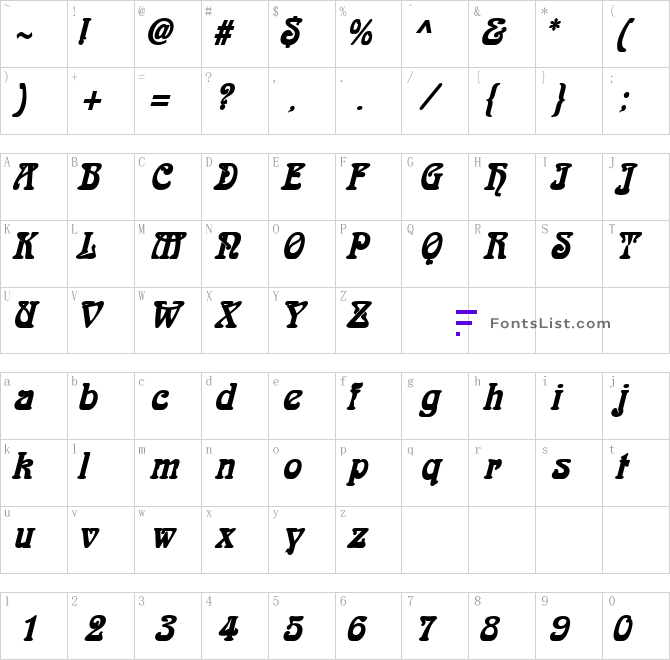
- Font Name:Aidan Thin
Aidan-Thin-BoldItalic.ttf is a very beautiful artistic font, Aidan-Thin-BoldItalic.ttf is widely used in the design and printing of various books and pictures,Aidan-Thin-BoldItalic.ttf has a strong visual impact,Aidan-Thin-BoldItalic.ttf is a commonly used font in newspapers, magazines and books, and is used in posters, e-commerce Poster design, store design, logo design, font design and other fields.Aidan-Thin-BoldItalic.